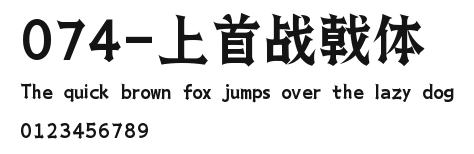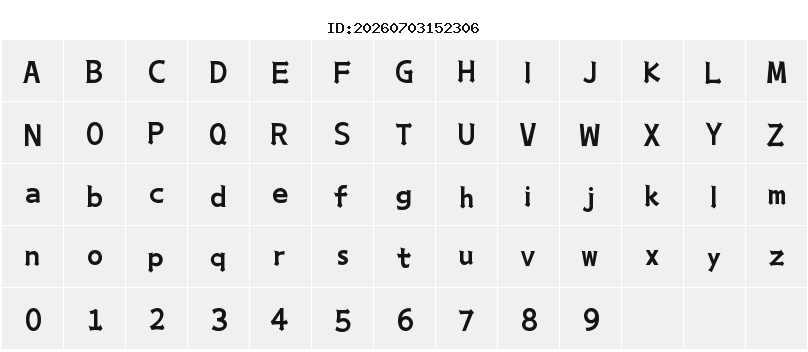
074-上首战戟体 Preview
• Font Name: 074-上首战戟体
• Full Font Name: 074-上首战戟体
About 074-上首战戟体.ttf
074-上首战戟体.ttf is a modern, elegant sans-serif font designed for ultimate readability and visual harmony. Perfect for branding, headlines, web design, and print materials.